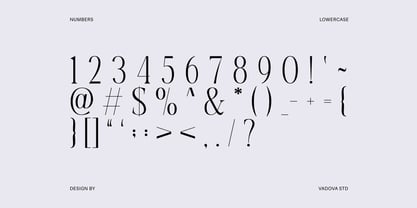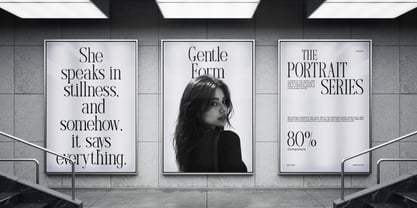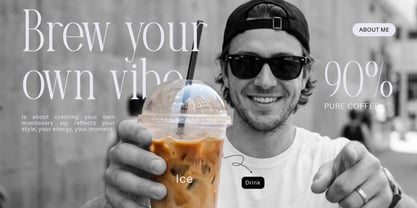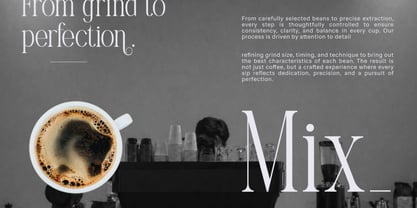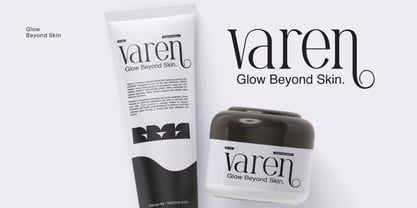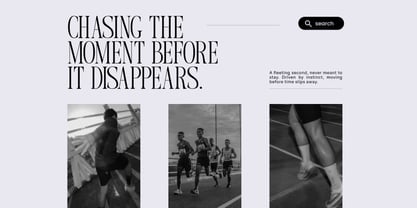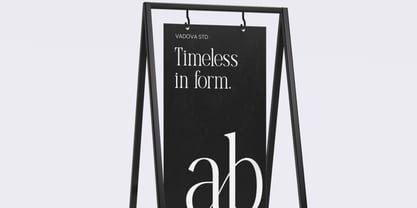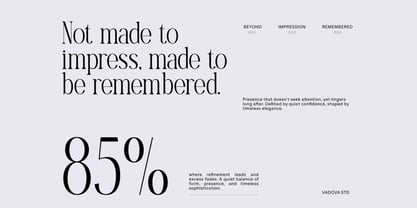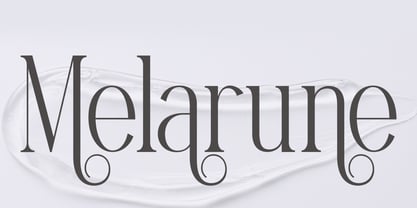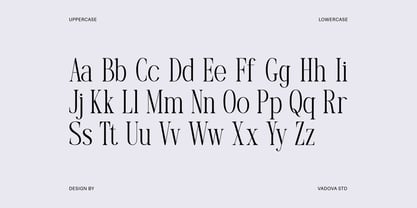
Melarune
by Vadova Std
The Melarune Font Family and published by Vadova Std. Melarune contains 1 styles. More about this family
Melarune Modern Elegant Serif showcases a refined typeface with graceful high-contrast strokes, delicate curves, and distinctive ornamental terminals that create a timeless and sophisticated visual identity. The letterforms balance modern editorial aesthetics with subtle classic influences, delivering elegance and clarity across layouts. This font includes uppercase, lowercase, numerals, punctuation. Melarune is designed to bring a polished and expressive tone to contemporary visual design.
Relevance and Use Cases is perfect for fashion branding, luxury logos, editorial layouts, magazine headlines, beauty packaging, wedding designs, lifestyle content, photography branding, social media visuals, and premium marketing materials that require a refined, elegant, and timeless typographic presence.